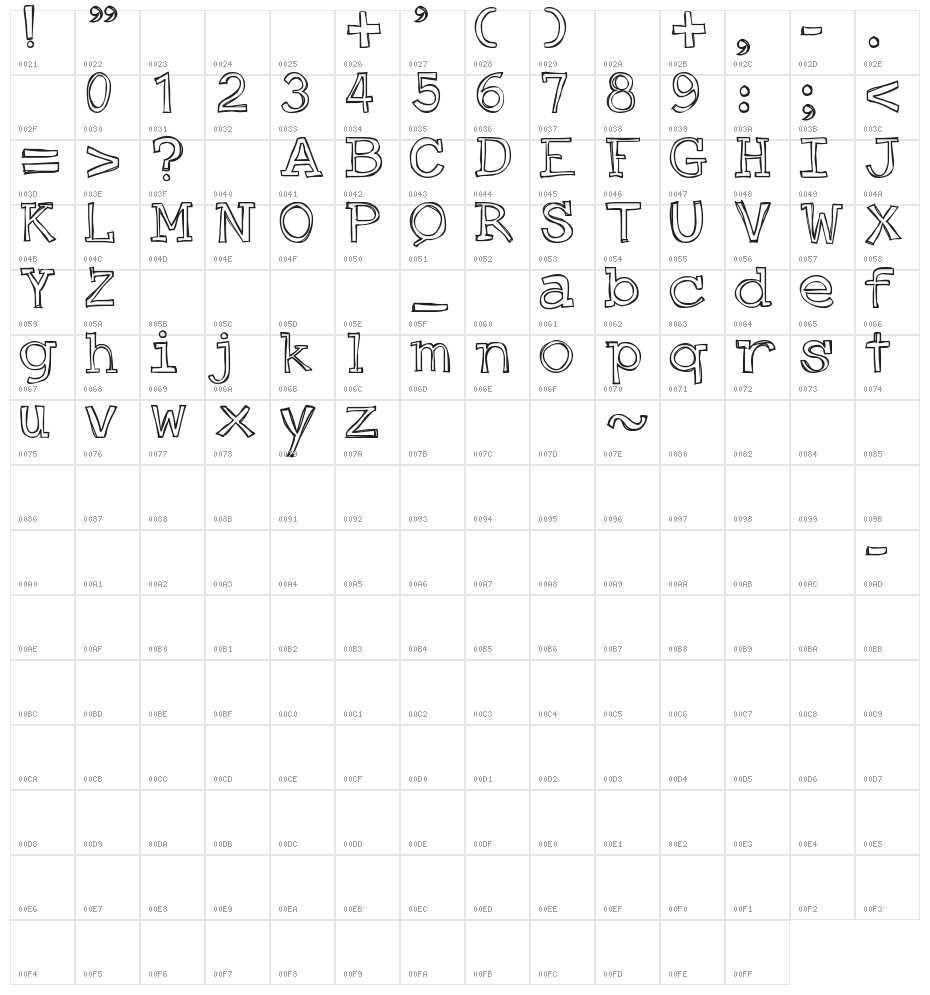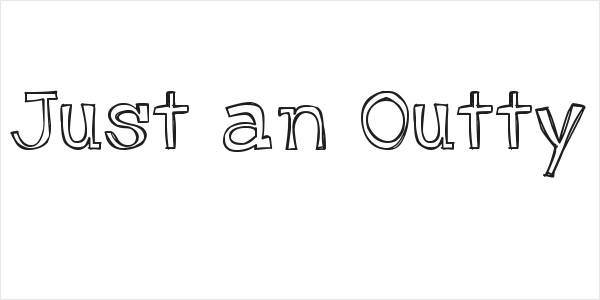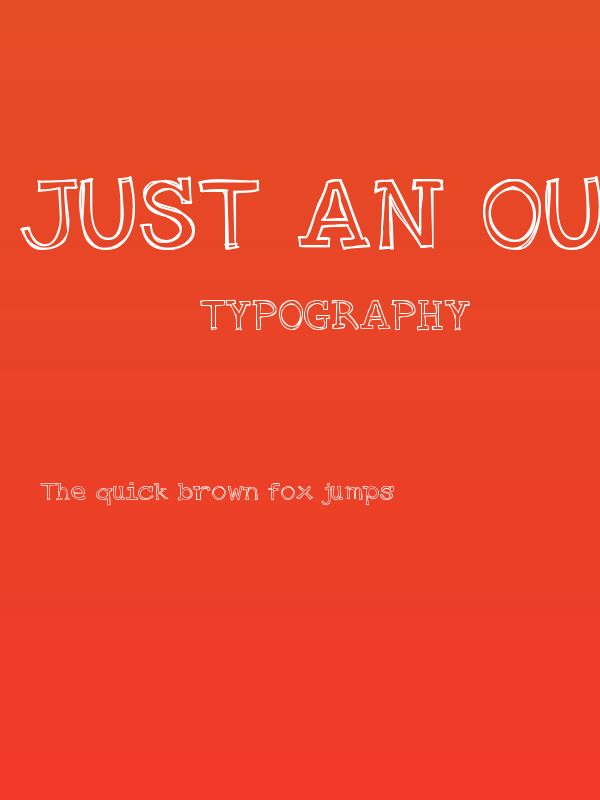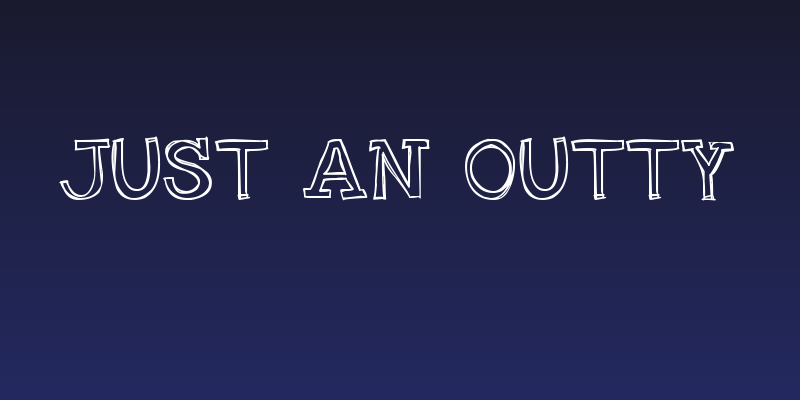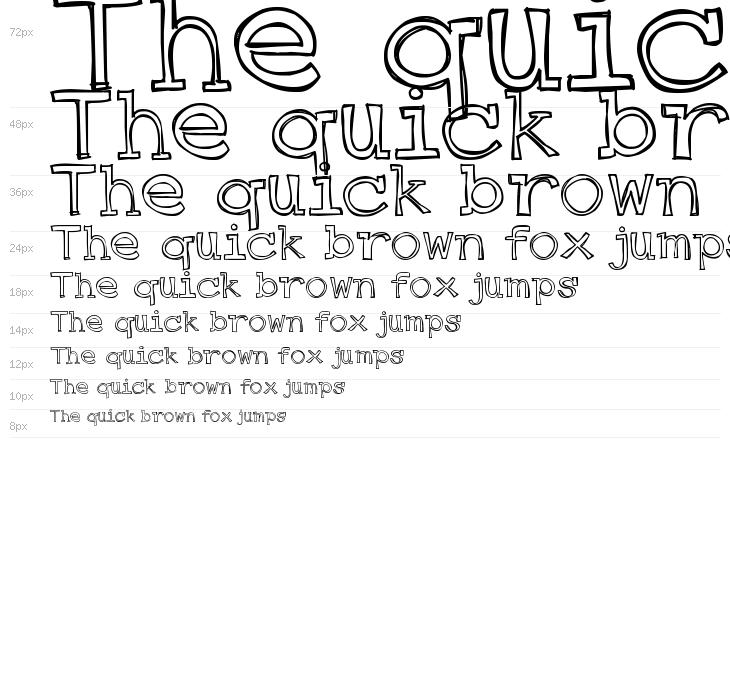
Just an Outty Font
Just an Outty Description
| Overall Style | Whimsical, Playful, Artistic |
| Proposed Projects | Ideal for children's books, comic strips, playful branding, greeting cards, and DIY projects. |